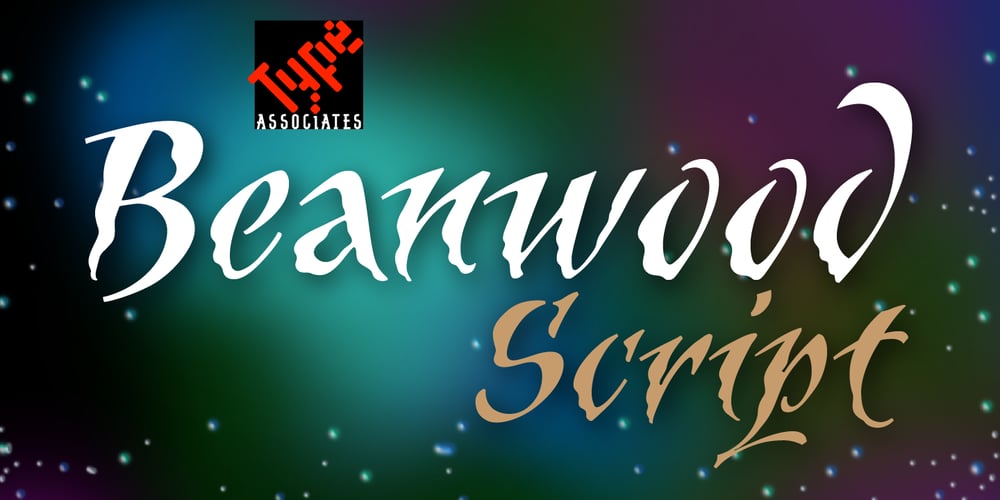
Beanwood Script
Beanwood Script font
Beanwood Script Font Family was designed by Russell Bean, David Wood and published by Type Associates. Beanwood Script contains 1 styles and family package options. In 1994 Dave Wood was not just a neighbor but an internationally acclaimed calligrapher and illustrator and he had no hesitation when I suggested a joint project – his penmanship immortalized digitally.